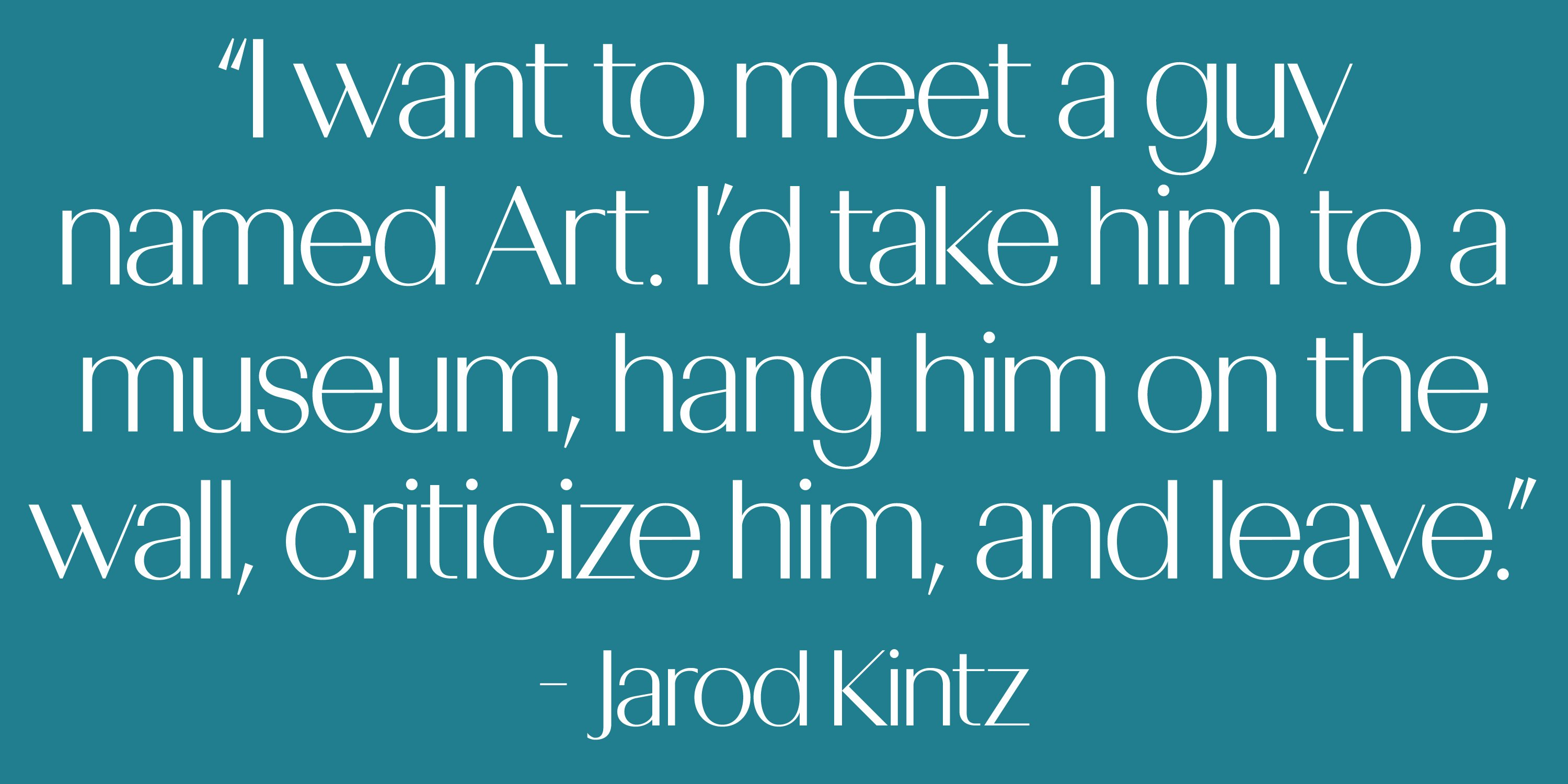
OL Radiant Slender Font is perfect for high-fashion magazines, luxury skincare brands, elegant jewelry designers, sophisticated beauty salons, refined wellness spas, upscale fitness studios, and premium lifestyle publications. This luminous typeface embodies graceful elegance and refined sophistication, bringing radiant beauty and slender sophistication to any design project celebrating luxury aesthetics and premium lifestyle experiences.
What makes OL Radiant Slender Font exciting is its exquisite combination of luminous elegance and refined slenderness that perfectly captures the essence of luxury beauty and sophisticated lifestyle branding. The font features delicate letterforms with radiant proportions and graceful character details that evoke both the luminosity of premium beauty products and the elegance of high-fashion design. Its sophisticated character appeals to luxury consumers while maintaining exceptional readability for both beauty marketing materials and fashion publication applications.
The OL Radiant Slender Font family includes ultra-light to regular weights with complementary italic variations and luxury ornamental elements. The character set features elegant ligatures, beauty symbols, sophisticated alternates, and radiant decorative accents that enhance the font's premium appeal. Advanced OpenType features provide creative flexibility for international luxury brands and multilingual high-end beauty applications.
Whether you're designing luxury beauty brands, creating high-fashion materials, or developing premium lifestyle content, OL Radiant Slender Font Free Download provides exceptional elegance and versatility. This luminous typeface transforms ordinary text into radiant luxury experiences that celebrate sophisticated beauty while establishing prestigious brand recognition in competitive luxury beauty and high-fashion marketplaces.